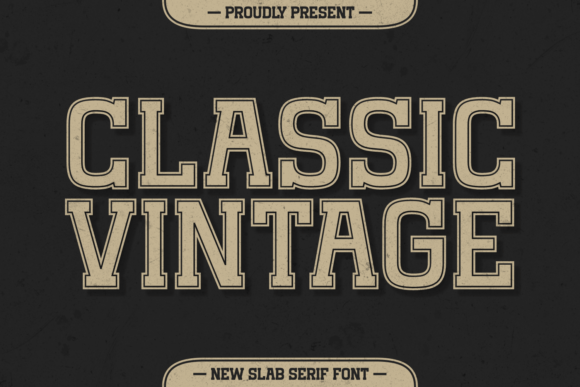
The Timeless Charm of Classic Vintage Font
Do you remember the thrill of rummaging through your grandparents’ attic, uncovering old photographs and dusty letters that whispered stories of the past? That’s the kind of nostalgia and charm that the Classic Vintage Font embodies. Its unique, playful design is a perfect blend of retro flair and modern sophistication.
As a versatile display font, Classic Vintage is ideal for adding a touch of whimsy to your designs. Whether it’s a greeting card, a headline, or a promotional poster, this font is sure to capture attention and leave a lasting impression. For designers, the Classic Vintage Font is a valuable asset, offering a wide range of creative possibilities and a unique visual identity that sets projects apart from the ordinary.
Classic Vintage Font Key Features
- Font Family: Classic Vintage Font (includes 6 styles: Light, Regular, Bold, Italic, Bold Italic, Outline)
- Unique Characteristics: Distressed, worn, and aged appearance, giving it a nostalgic feel; includes subtle texture and imperfections for added realism
- Language Support: Supports over 100 languages, including Latin, Cyrillic, and Greek alphabets
Designer Review: Classic Vintage Font
Overall, I think the Classic Vintage Font is a great addition to any designer’s toolkit, but as with any font, it has its strengths and weaknesses.
- Warm and inviting feel: This font is perfect for creating a cozy, nostalgic atmosphere in your designs.
- Highly legible: The Classic Vintage Font is easy to read, even at small sizes, making it ideal for body text.
- Great for branding: This font’s unique character makes it a great choice for creating a memorable brand identity.
- Limited versatility: While the Classic Vintage Font is great for certain types of projects, it may not be the best choice for modern or minimalist designs.
- May not be suitable for digital use: The font’s low resolution may cause it to appear blurry or pixelated on digital screens.
I think the Classic Vintage Font is a great choice for designers looking to add a touch of nostalgia to their projects. While it may not be the best fit for every design, it’s a valuable addition to any toolkit. With its warm feel and high legibility, it’s sure to become a go-to font for many designers.
Tips for Getting the Most Out of the Classic Vintage Font
To get the most out of the Classic Vintage Font, consider the following tips:
- Use it for nostalgic or vintage-themed designs.
- Pair it with distressed textures or effects for a vintage look.
- Use it for quotes or phrases with a classic feel.
The Classic Vintage Font is commonly used for:
- Vintage-themed posters and flyers.
- Old-school advertisements and promotional materials.
- Choose a distressed or worn effect for the font to give it a retro look.
- Use the font in a large, bold size to make it easily readable from a distance.
- Combine the font with a warm color scheme, such as pastel shades or earthy tones.
- Pair the font with vintage-style illustrations or graphics to add visual interest.
- Use a distressed texture or pattern to give the background a worn, aged look.
- Emphasize the font with a ribbon or banner effect to draw attention to key menu items.
- Choose a font with a subtle, hand-drawn feel to evoke a sense of nostalgia.
- Use the font in a variety of sizes and styles to create visual interest and hierarchy.
- Combine the font with vintage-style maps, photographs, or illustrations to add context and depth.